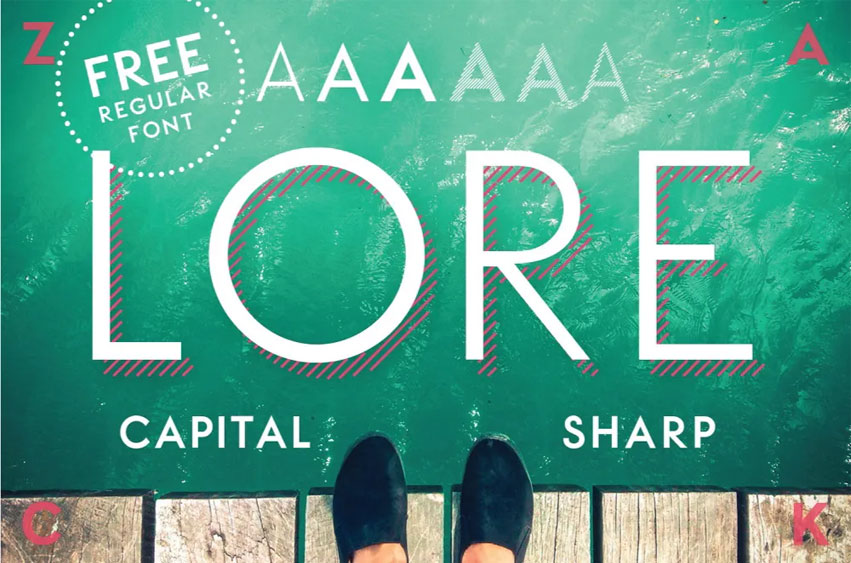
Lore Font
Lore Font Ever take the time to give LORE an artistic kick? This geometric sans serif capital font is versatile for any use, and comes with three weight styles and six sub-styles!
Not only that, but it also has multiple weights which is always a plus!